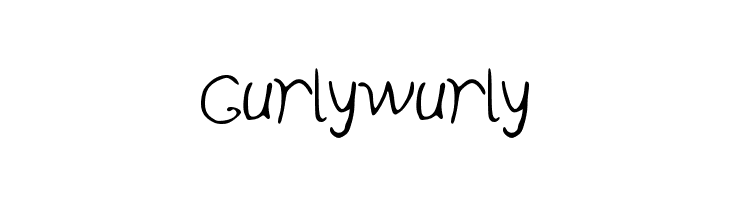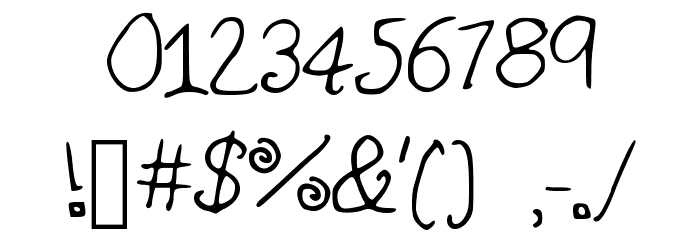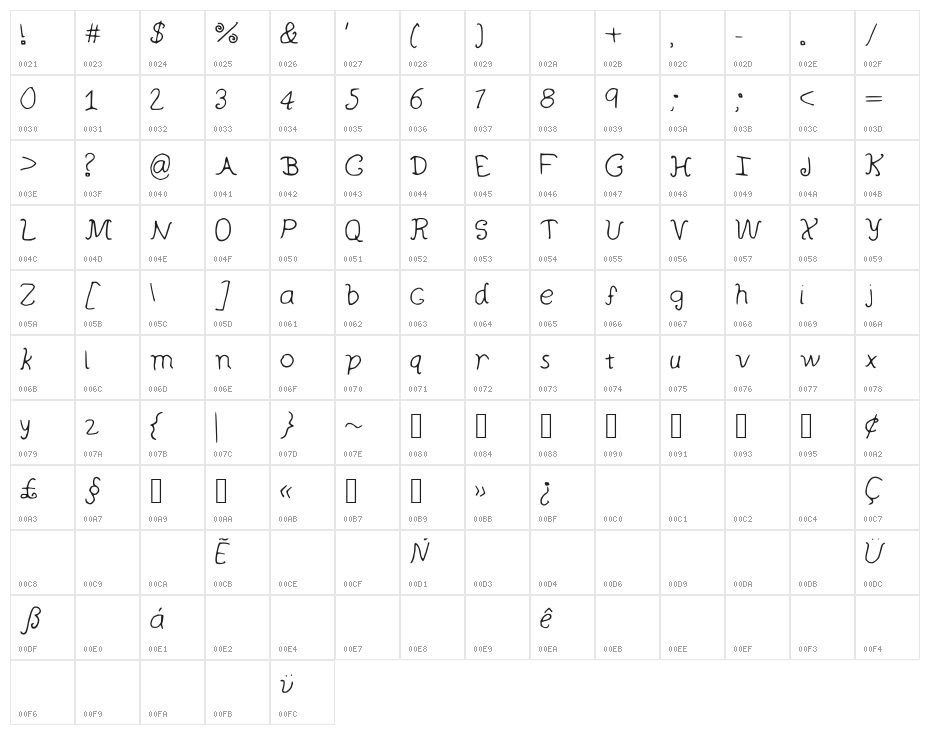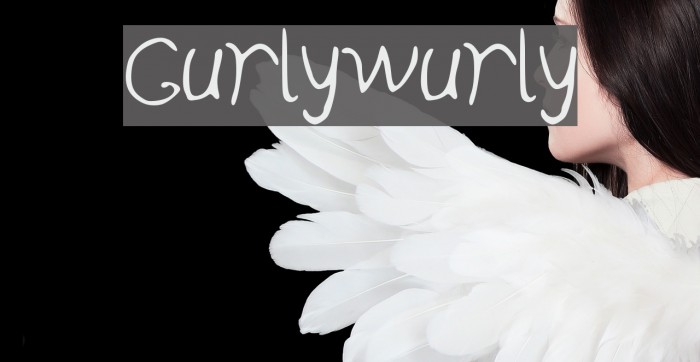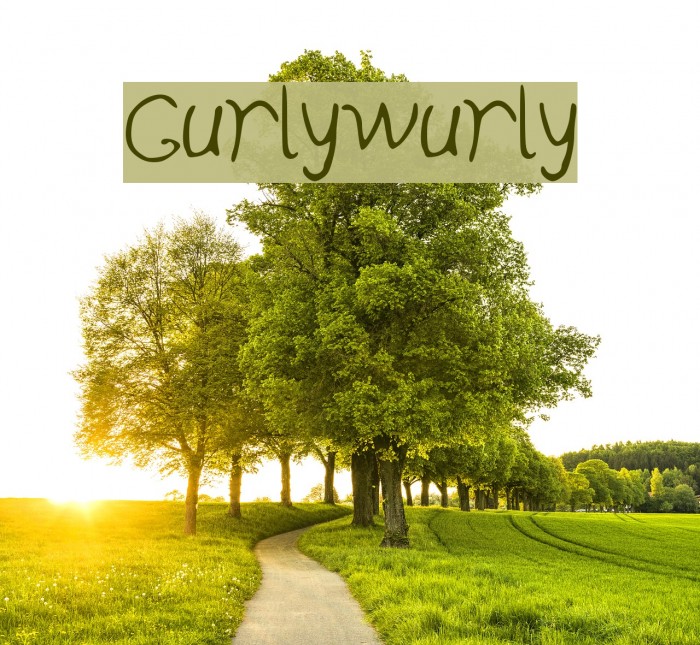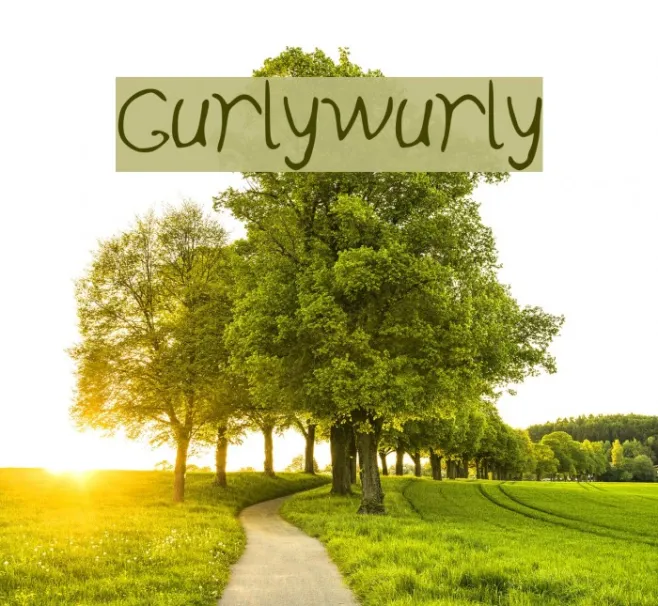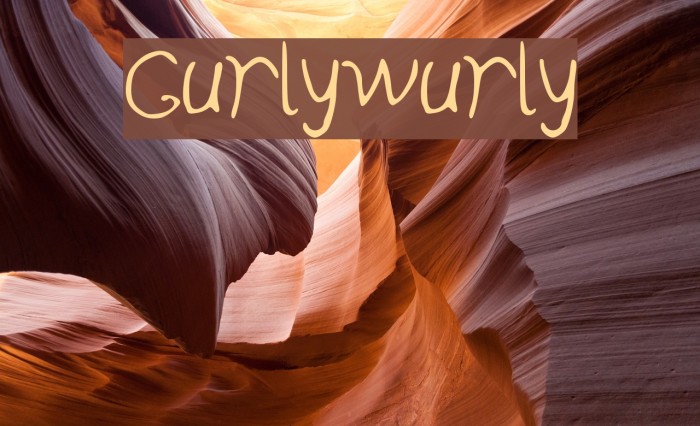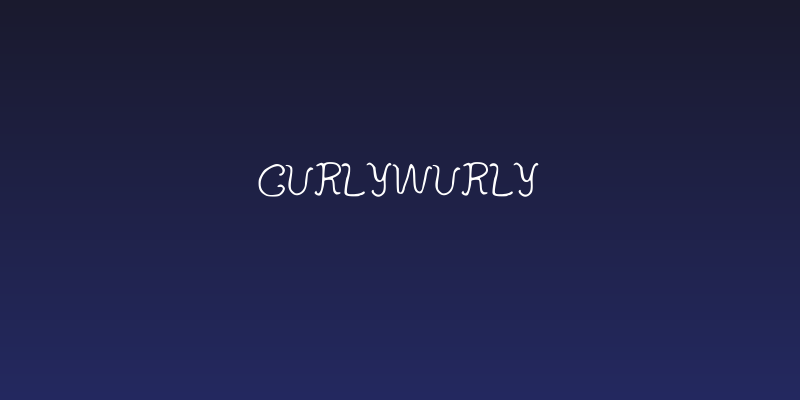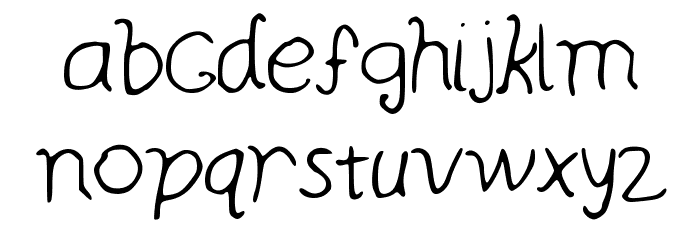
curlywurly Font
curlywurly Description
This playful and whimsical font features a curly, hand-drawn style that exudes a sense of fun and creativity. Each character is uniquely crafted with a flowing, organic form, giving it a lively and animated appearance. The uppercase letters are bold and expressive, while the lowercase letters maintain a consistent, yet slightly more subdued, charm. The numbers and special characters follow the same playful design, making them perfect for adding a touch of personality to any project. The overall look is informal and artistic, ideal for projects that aim to capture a sense of joy and spontaneity.
| Overall Style | Playful, Whimsical, Artistic |
| Proposed Projects | Ideal for children's books, greeting cards, playful branding, and creative posters. |